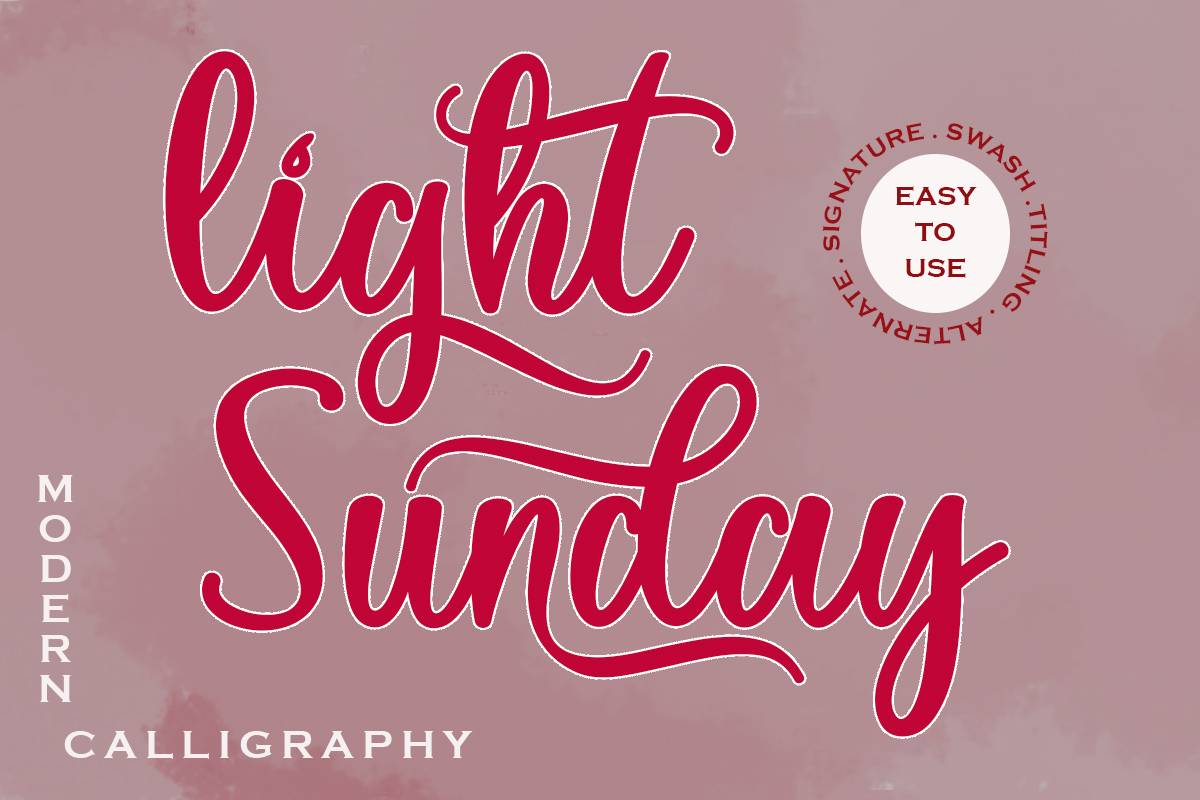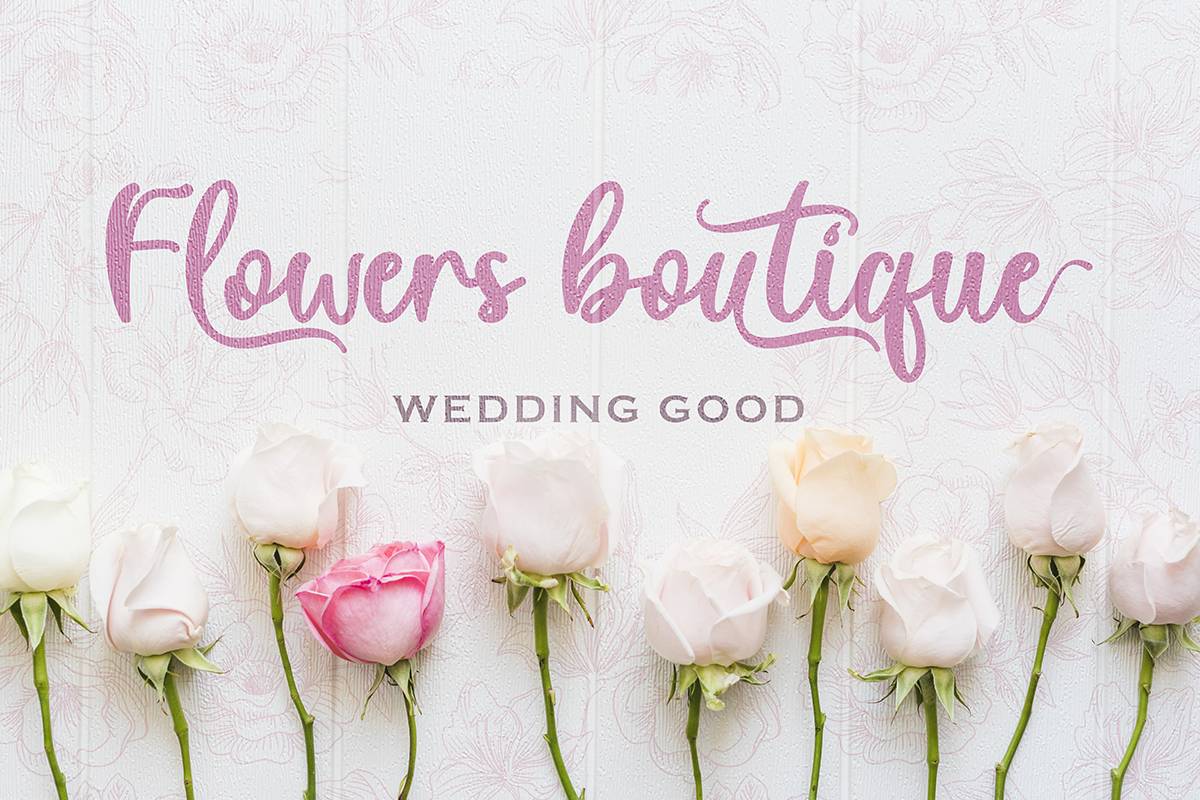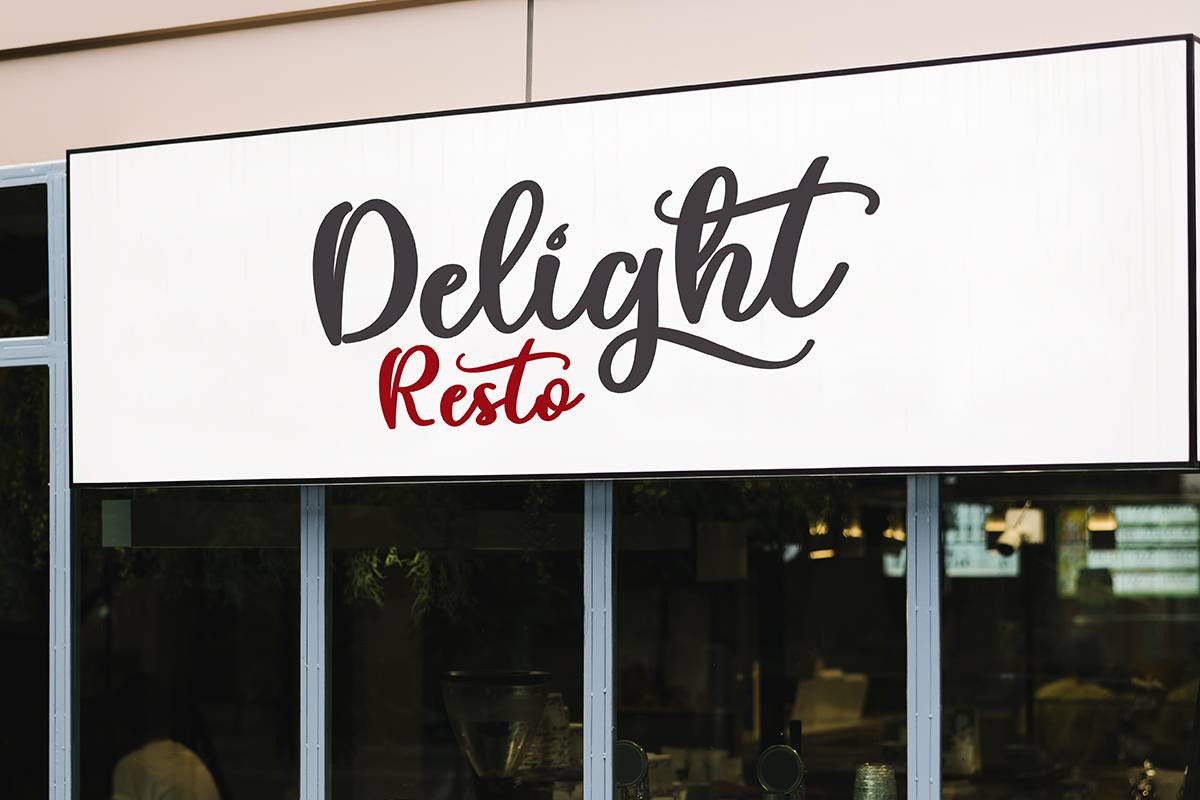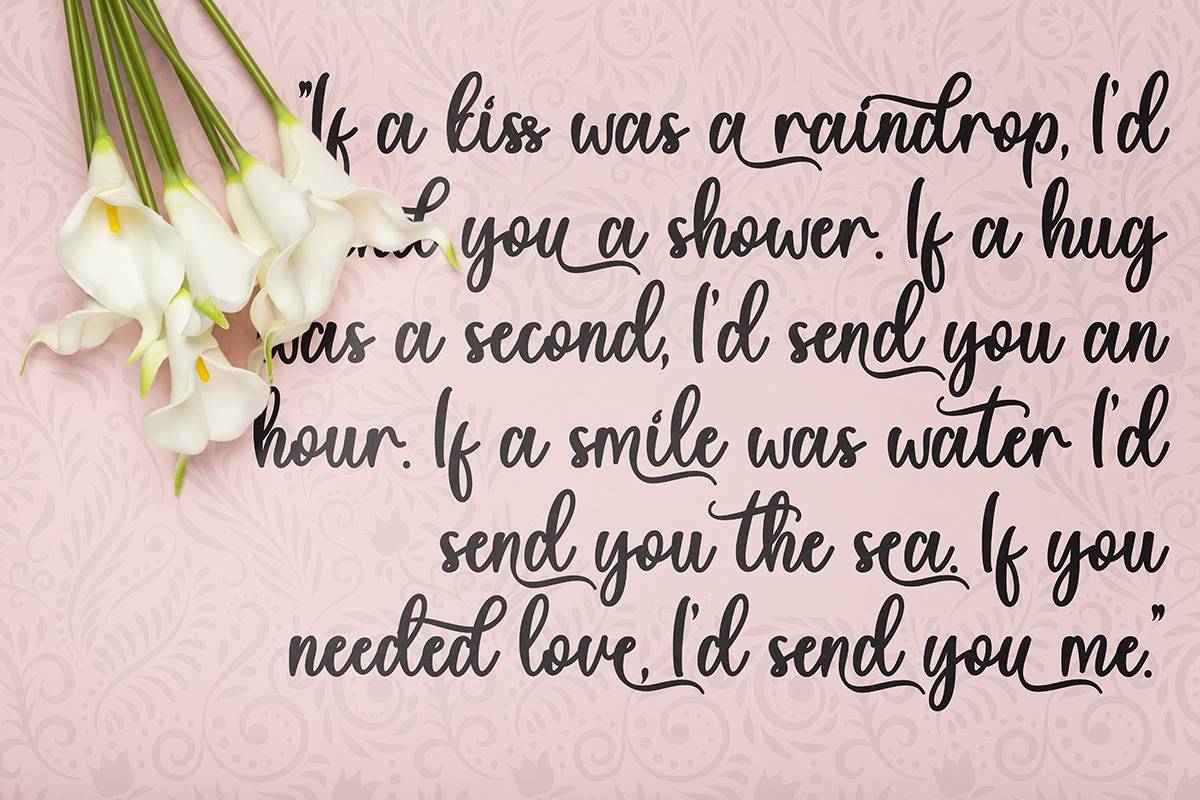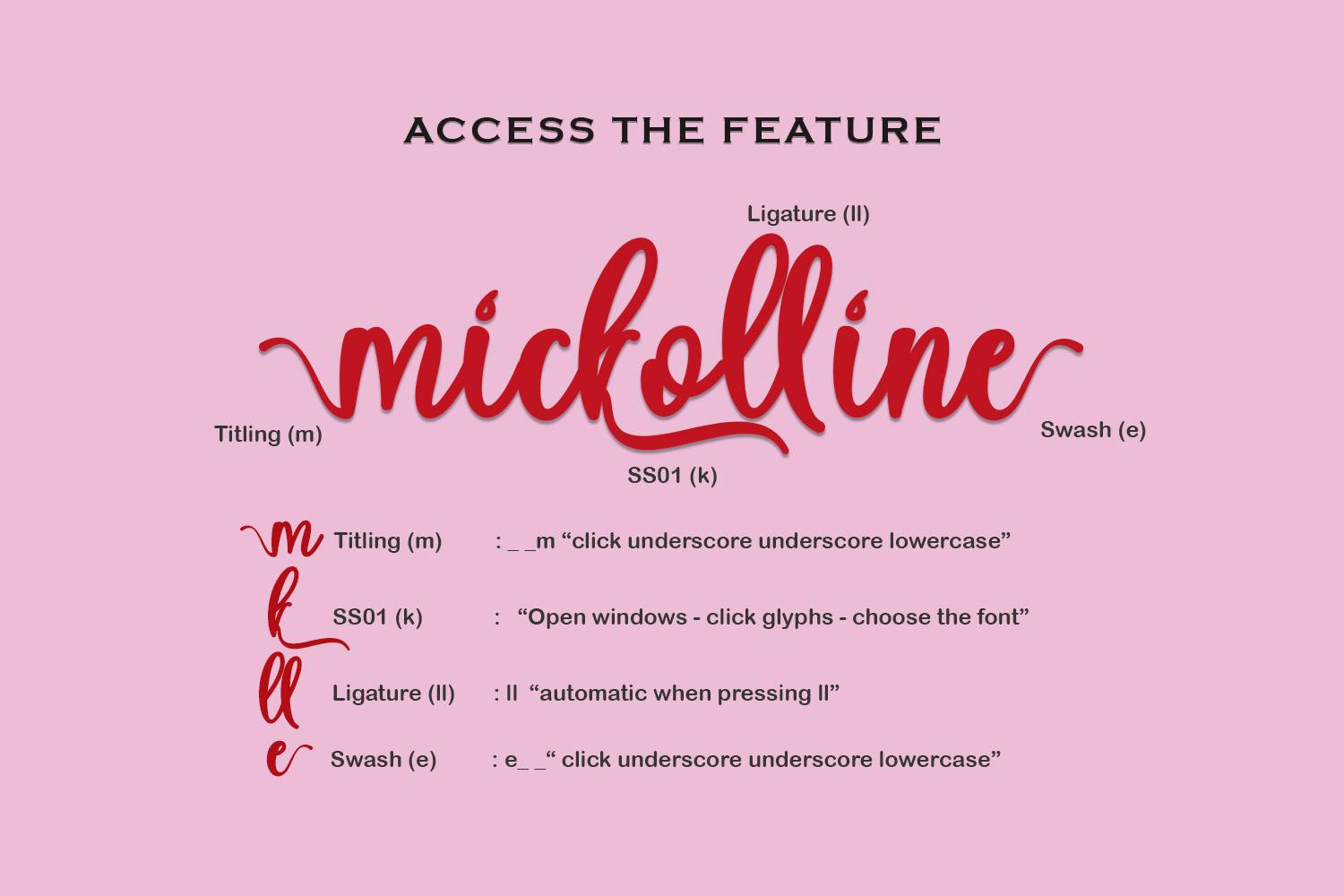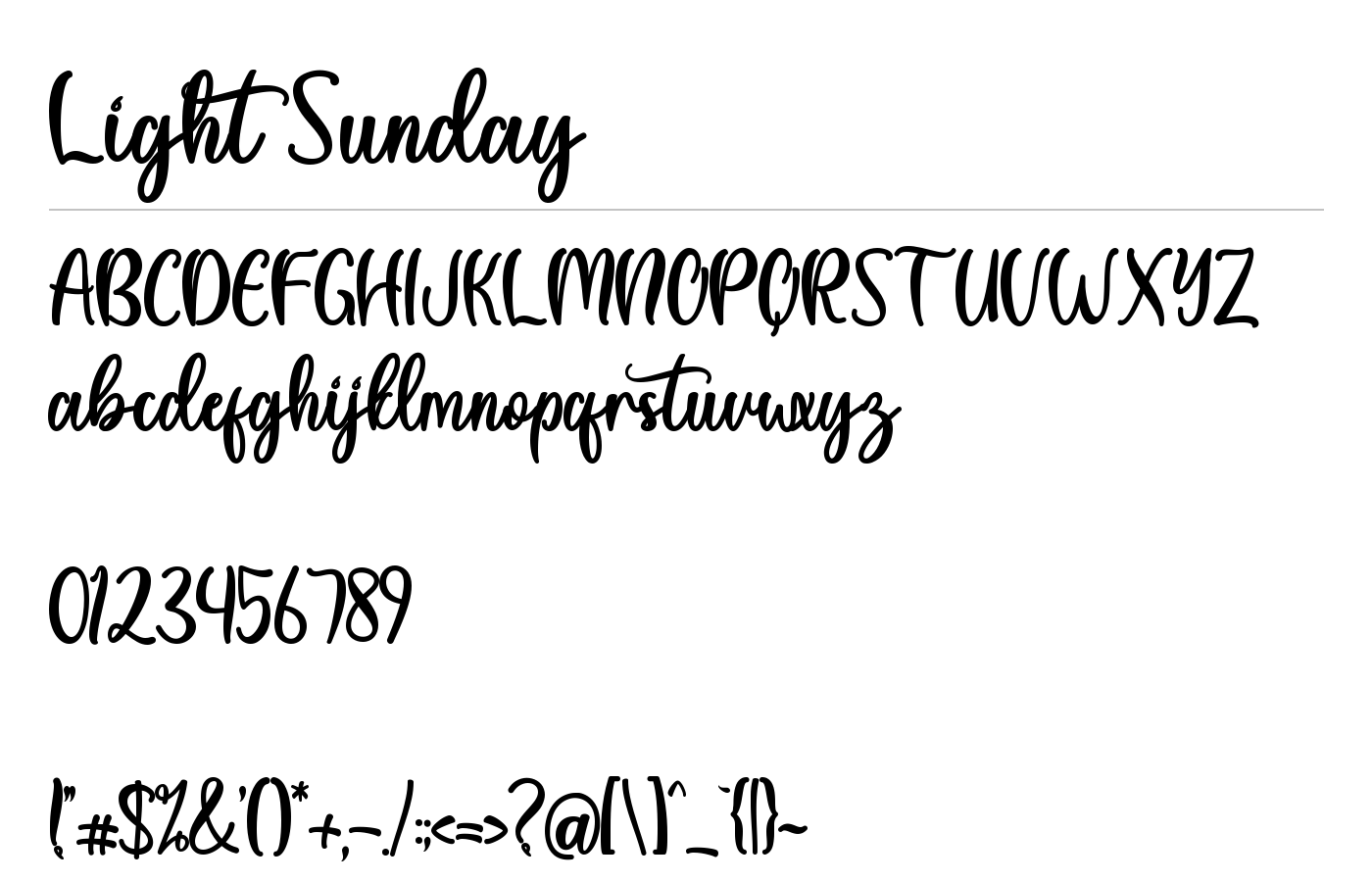
Light Sunday is a playful, hand-lettered script font with a casual yet elegant personality. Its smooth, light strokes and lively letterforms make it ideal for adding a personal, friendly touch to branding, invitations, and social media graphics. This font works best in headlines and display uses where a warm, approachable style is desired.
Light Sunday Font
About Light Sunday Font
| Font family | Light Sunday Font |
| Release date | 2021-06-14 |
| Designer | Yoga Letter 2021 (Isroni Yoga Prasetya) |